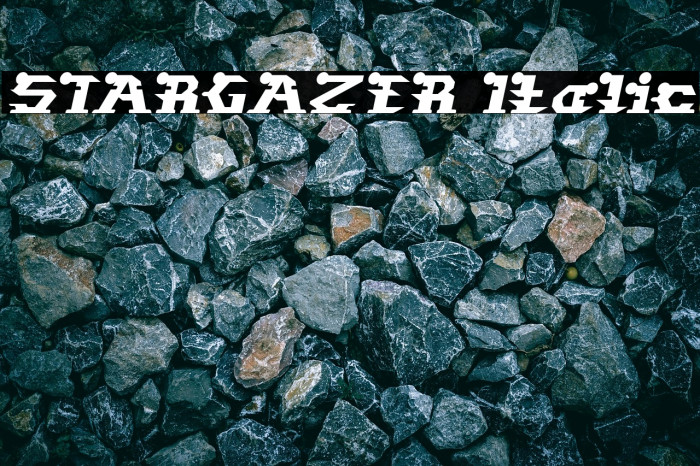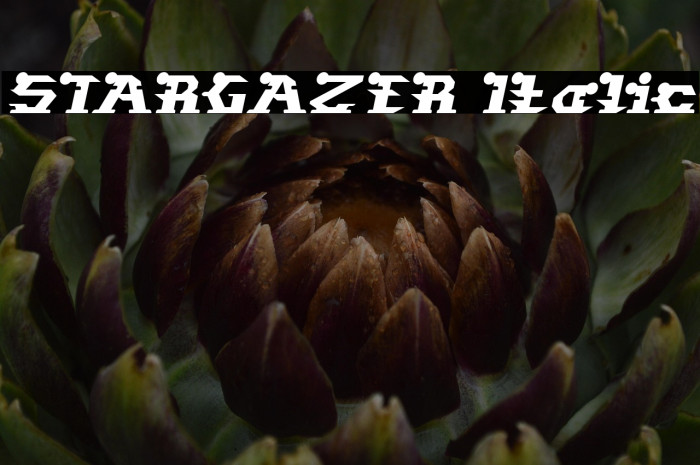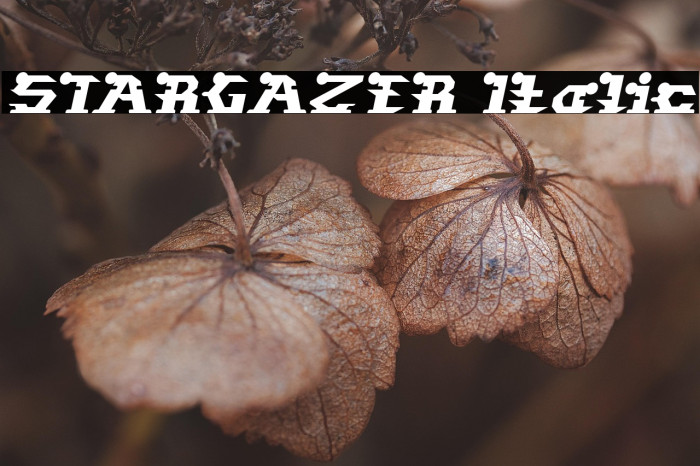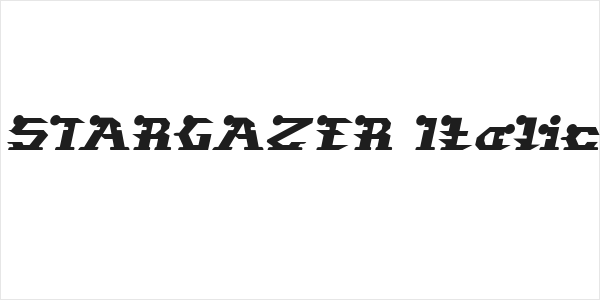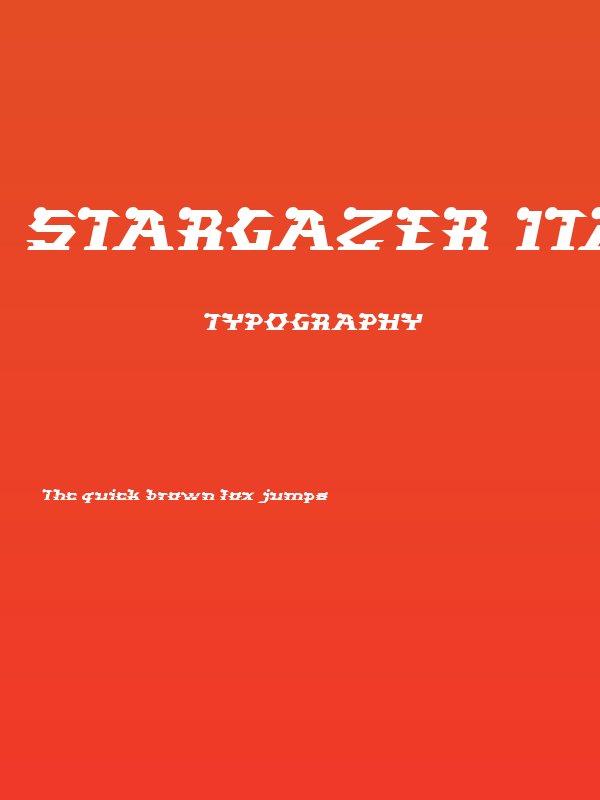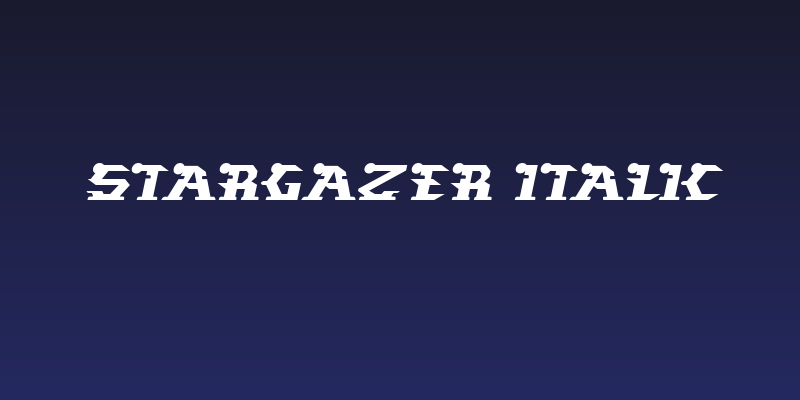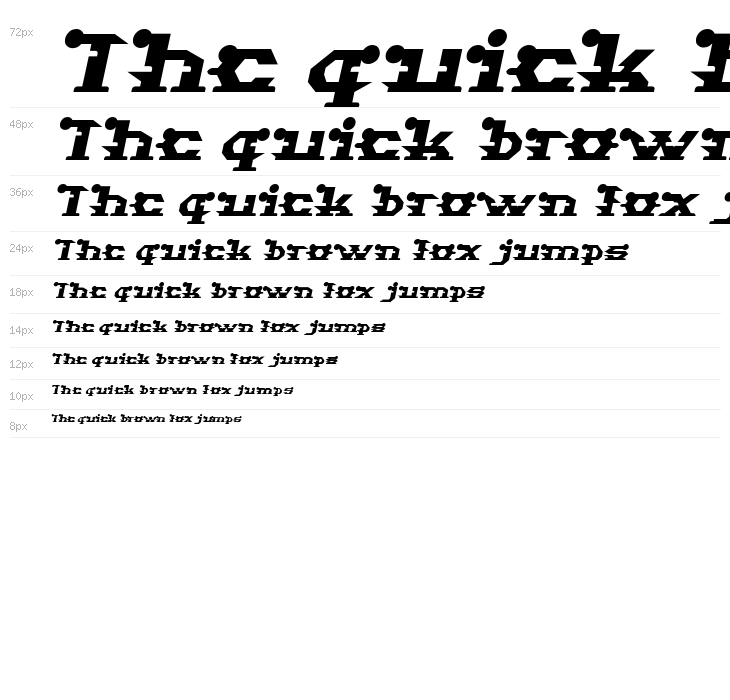
STARGAZER Italic Font
STARGAZER Italic Description
This font features a bold and dynamic style with a distinct italic slant, giving it a sense of motion and energy. The characters are crafted with sharp edges and angular forms, creating a futuristic and edgy appearance. The uppercase and lowercase letters maintain a consistent design, with unique embellishments that add to the font's decorative nature. The numerals and special characters are equally stylized, ensuring a cohesive look across all glyphs. This font's boldness and unique style make it stand out, ideal for projects that require a strong visual impact.
| Overall Style | Futuristic, Edgy |
| Proposed Projects | Ideal for sci-fi themed designs, video game titles, posters, and branding that requires a bold, modern look. |